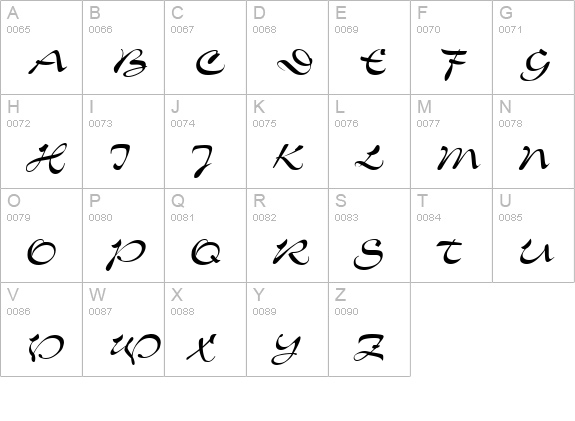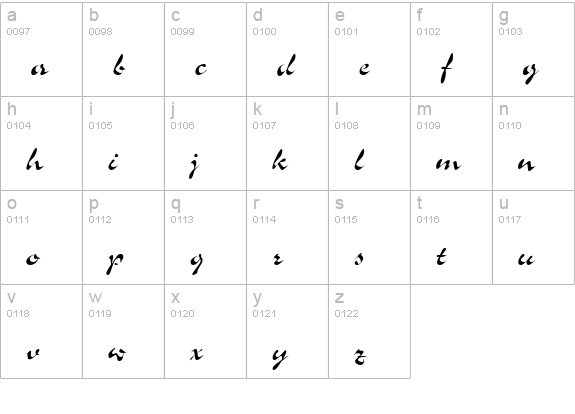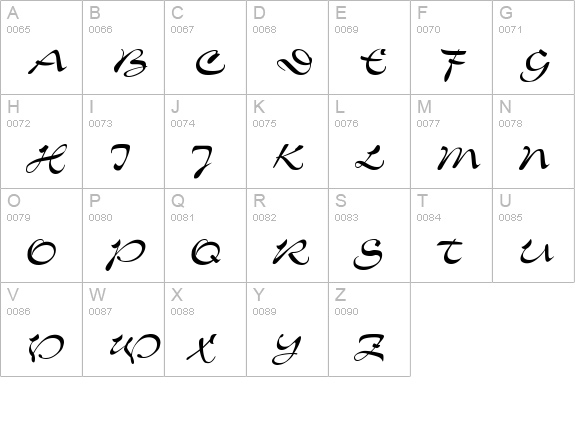
Slalom Font Details
Slalom font is a sleek and modern typeface that exudes elegance and sophistication. Its clean lines and smooth curves make it perfect for a wide range of design projects, from logos and branding to headlines and body text. The versatility of Slalom font allows it to be used in both digital and print mediums, ensuring that your message is conveyed with utmost clarity and style. What sets Slalom font apart is its unique blend of classic and contemporary elements. It strikes the perfect balance between tradition and innovation, making it suitable for both timeless and modern designs. Whether you're aiming for a vintage look or a cutting-edge aesthetic, Slalom font has got you covered. One of the best things about Slalom font is that it is available for free. Yes, you read that right! This stunning typeface can be freely downloaded at FontsMarket.com, giving you the opportunity to enhance your creative projects without any additional cost. With its exceptional quality and accessibility, Slalom font is a must-have for designers and typographers alike. Featuring a wide range of weights and styles, Slalom font offers endless possibilities for customization. Whether you prefer a bold and impactful statement or a subtle and refined touch, this font has the perfect option for you. Its extensive character set ensures that you can express yourself in any language or style, making Slalom font a truly global typeface. In conclusion, Slalom font is a remarkable typeface that combines timeless elegance with contemporary flair. Its versatility, exceptional quality, and the fact that it is freely available for download at FontsMarket.com make it an invaluable resource for designers seeking to elevate their projects to new heights. Don't miss out on the opportunity to add this stunning font to your collection.